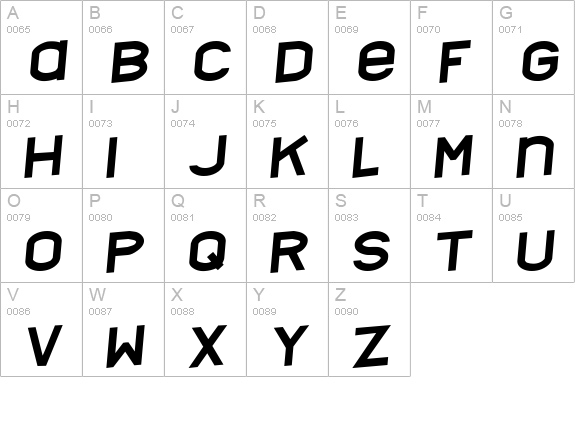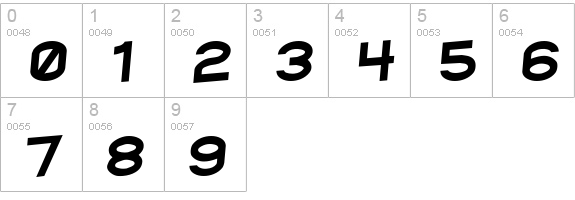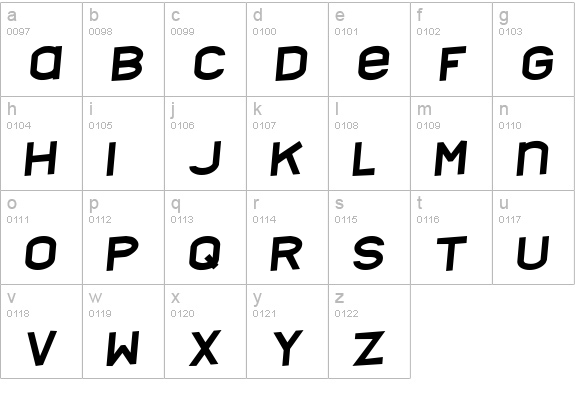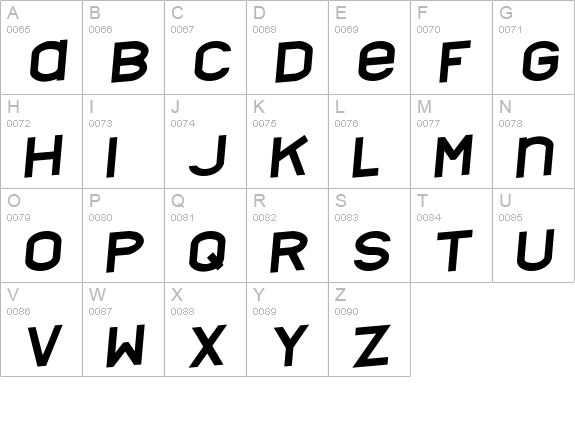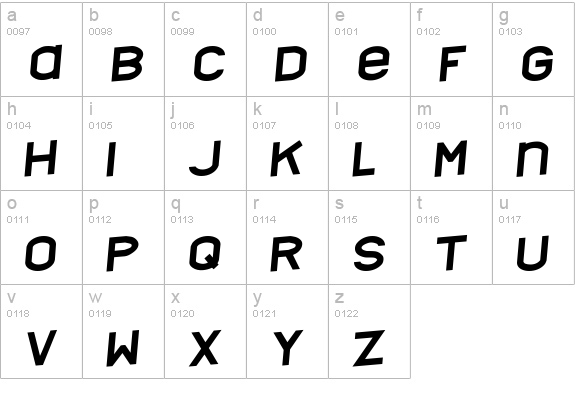
Nyctalopia tilt Font Details
The Nyctalopia tilt font is a stunning and unique typeface that will add a touch of elegance and creativity to any design project. With its sleek and modern design, this font is perfect for creating eye-catching titles, headlines, and logos. The tilt effect adds a dynamic element that will make your text stand out from the crowd. Best of all, the Nyctalopia tilt font is available for free download at FontsMarket.com. This means you can easily access and use this beautiful font in your projects without any cost. Whether you're a professional designer or a hobbyist looking to add some flair to your creations, the Nyctalopia tilt font is a fantastic choice. Download it today and elevate your designs to the next level!